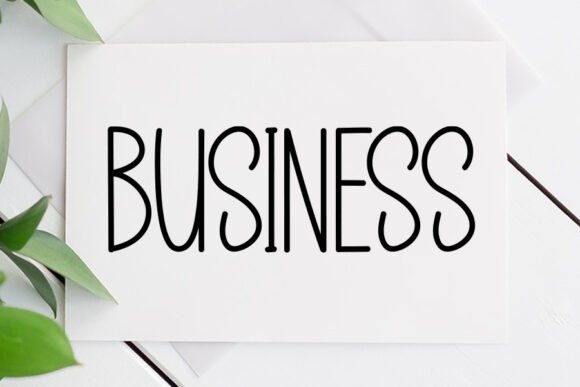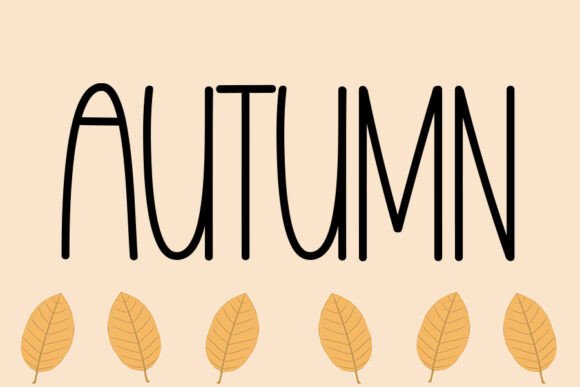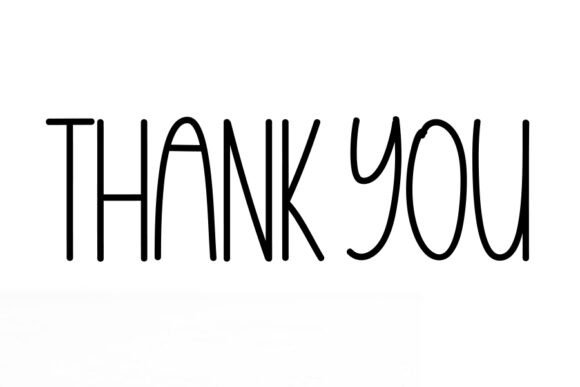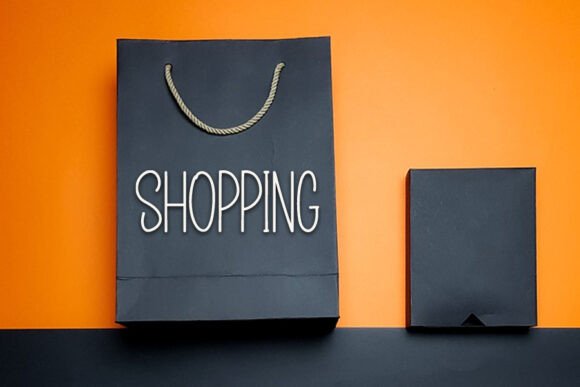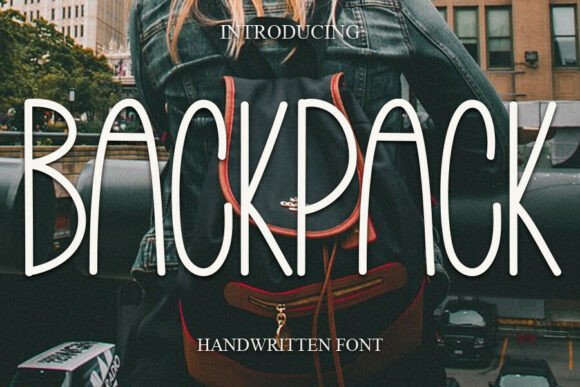
Introducing Backpack Font: The Perfect Handwritten Style for Your Designs
Are you looking for a font that can add a personal touch to your designs? Do you want to create something that feels casual, heartfelt, and playful? Look no further than Backpack Font, a tall, playful handwritten font that is perfect for a wide range of design projects.
What is Backpack Font?
Backpack Font is a unique and charming handwritten font that combines a clean style with a touch of personality. Its slim, elongated characters bring a sense of warmth and friendliness, making it ideal for designs that require a personal and emotional touch.
Key Features of Backpack Font
- Tall and Playful: Backpack Font features tall, playful characters that add a sense of whimsy to your designs.
- Clean Handwritten Style: The font has a clean and elegant handwritten style that is perfect for a wide range of design projects.
- Slim and Elongated Characters: The slim and elongated characters of Backpack Font bring a sense of warmth and personality to your designs.
- Casual and Heartfelt: The font has a casual and heartfelt feel that makes it perfect for personal and emotional projects.
Backpack Font is a versatile font that can be used for a wide range of design projects, including:
- Father’s Day Designs: Create personalized Father’s Day cards, posters, and t-shirts with Backpack Font.
- Greeting Cards: Add a personal touch to your greeting cards with Backpack Font’s clean and elegant handwritten style.
- T-Shirts: Create custom t-shirts with Backpack Font’s playful and casual style.
- Posters: Use Backpack Font to create eye-catching posters for a wide range of occasions.
Why Choose Backpack Font?
There are many reasons why you should choose Backpack Font for your design projects. Here are a few:
- Unique and Charming: Backpack Font has a unique and charming style that will set your designs apart from the rest.
- Easy to Read: The font is easy to read, making it perfect for designs that require a lot of text.
- Versatile: Backpack Font can be used for a wide range of design projects, from personal to commercial.
- High-Quality: The font is of high quality, ensuring that your designs look professional and polished.
Tips for Using Backpack Font
Here are a few tips for using Backpack Font in your design projects:
- Use it for Headings: Backpack Font is perfect for headings and titles, where its playful and casual style can really shine.
- Pair it with Other Fonts: Experiment with pairing Backpack Font with other fonts to create a unique and interesting look.
- Use it for Body Text: Backpack Font is also suitable for body text, where its clean and elegant style can add a personal touch to your designs.
Backpack Font is a unique and charming handwritten font that is perfect for a wide range of design projects. Its clean and elegant style, combined with its playful and casual feel, make it ideal for personal and emotional projects. Whether you’re designing for Father’s Day, creating greeting cards, or making custom t-shirts, Backpack Font is a great choice. So why not give it a try and see how it can add a personal touch to your designs?